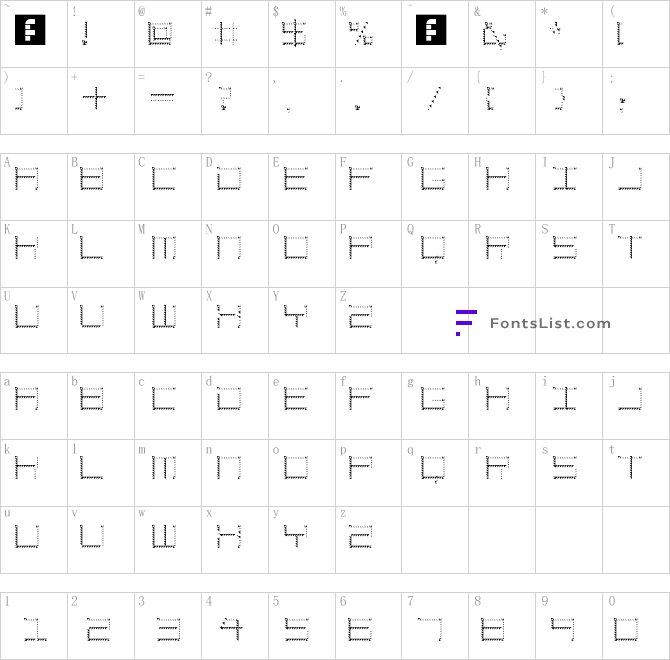
- Font Name:Amaya Technical Sharp
Amaya-Technical-Sharp-Regular.ttf is a very beautiful artistic font, Amaya-Technical-Sharp-Regular.ttf is widely used in the design and printing of various books and pictures,Amaya-Technical-Sharp-Regular.ttf has a strong visual impact,Amaya-Technical-Sharp-Regular.ttf is a commonly used font in newspapers, magazines and books, and is used in posters, e-commerce Poster design, store design, logo design, font design and other fields.Amaya-Technical-Sharp-Regular.